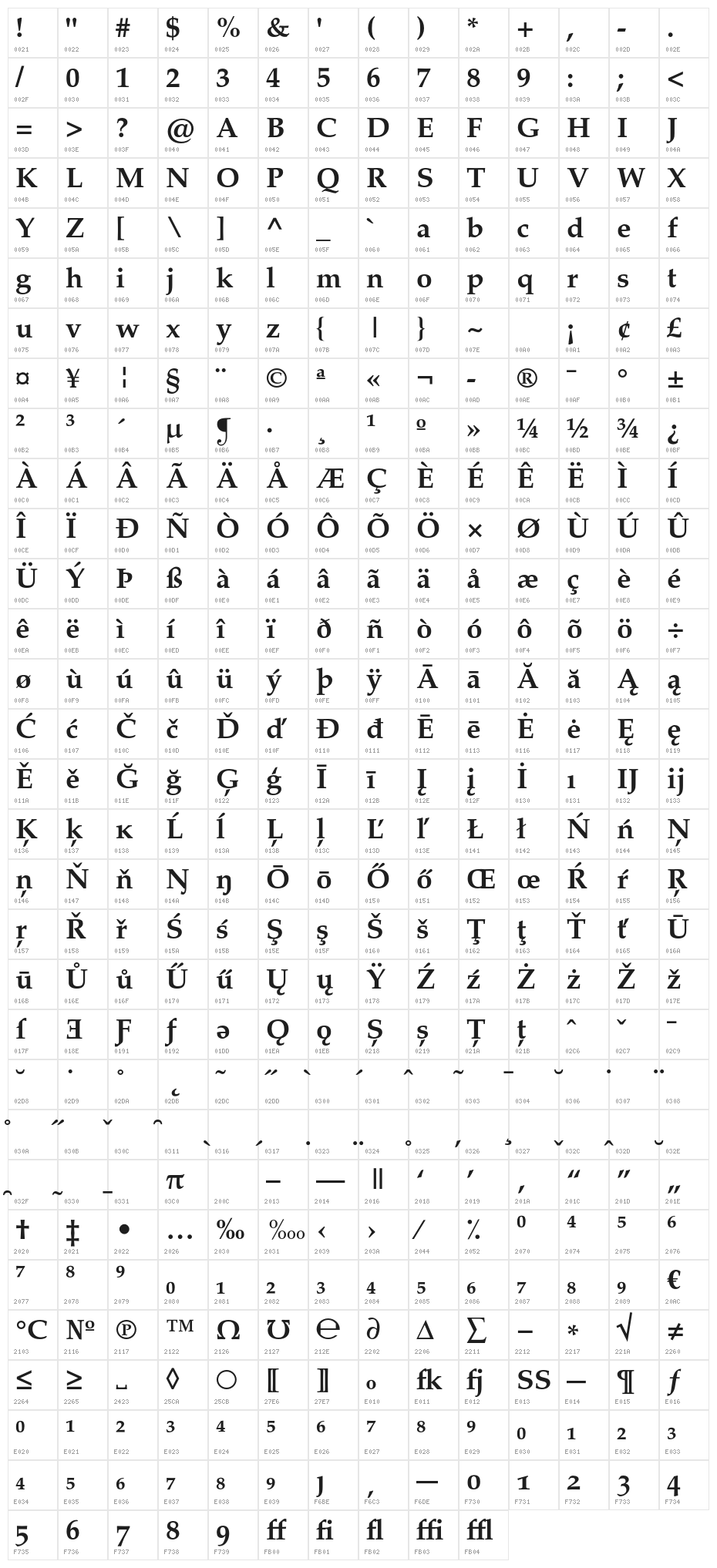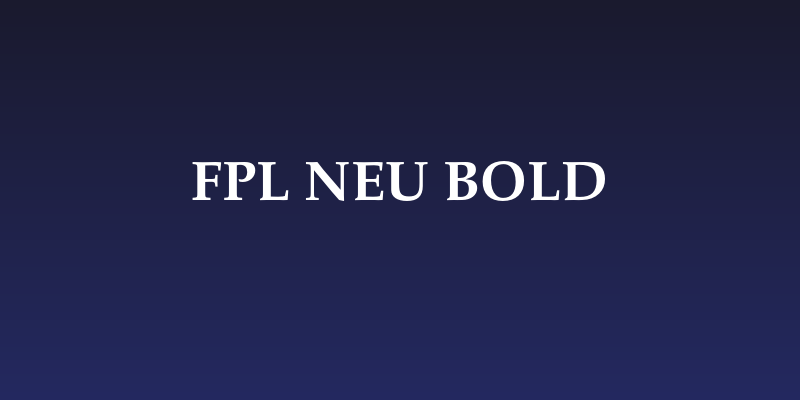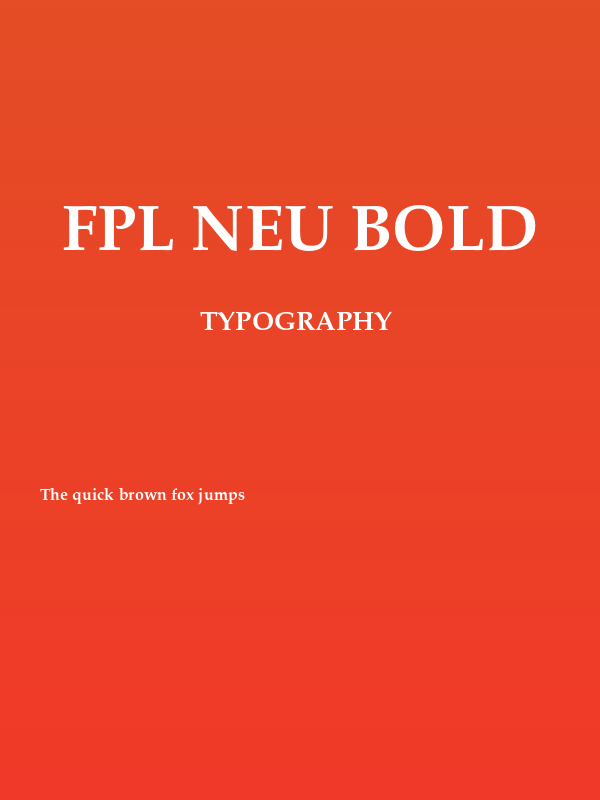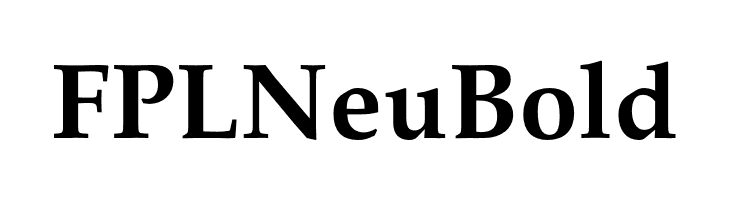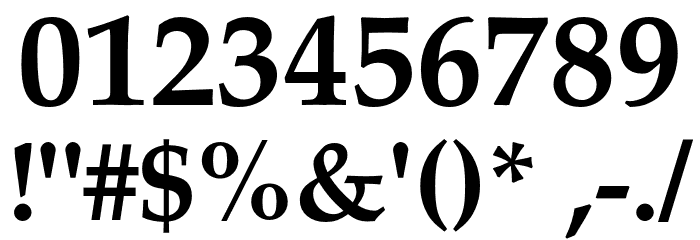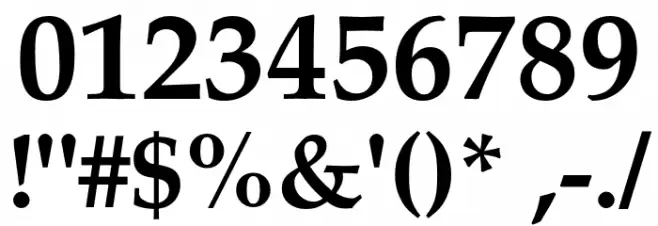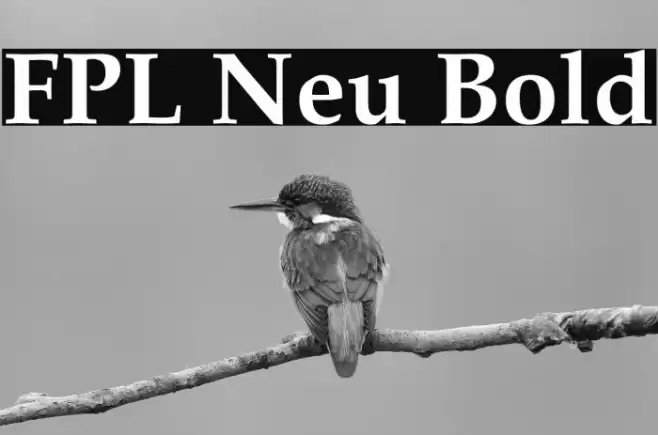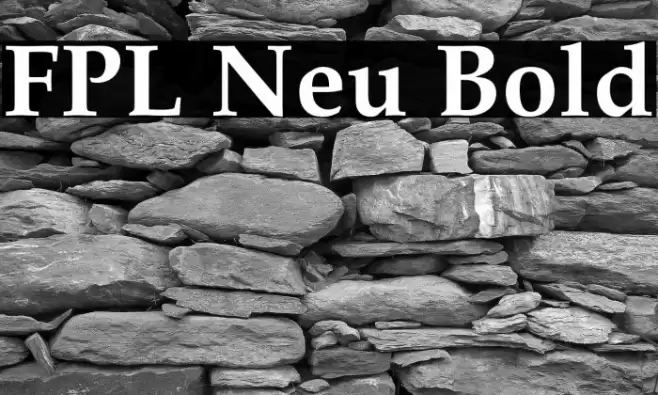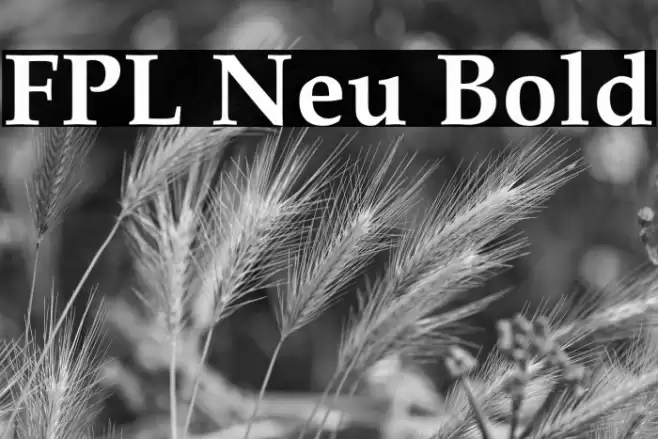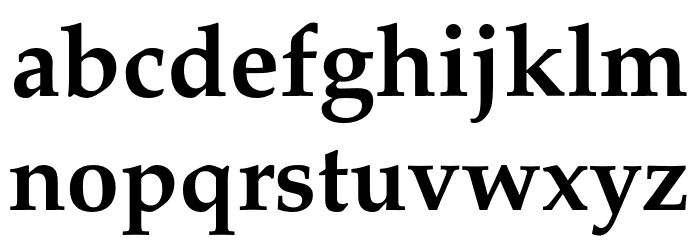
FPL Neu Bold Font
| Caso de uso | Headlines, Logos, Formal Documents |
| Projetos propostos | Ideal for book covers, formal invitations, editorial headlines, and branding materials that require a traditional yet bold appearance. |